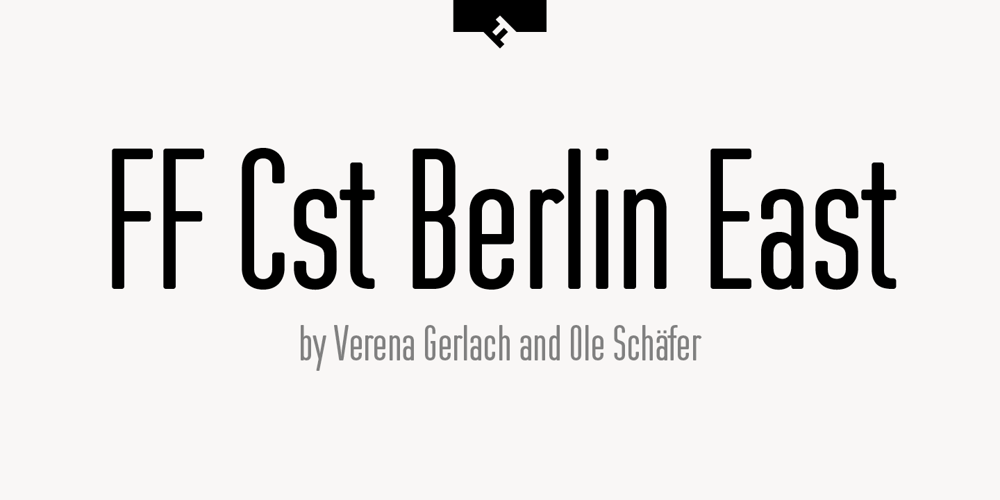
FF Cst Berlin East
FF Cst Berlin East font
FF Cst Berlin East Font Family was designed by Verena Gerlach, Ole Schäfer and published by FontFont. FF Cst Berlin East contains 5 styles and family package options. German type designers Verena Gerlach and Ole Schäfer created this sans FontFont in 2000. The family has 5 weights, ranging from Regular to Bold and is ideally suited for editorial and publishing and poster and billboards. FF CST Berlin East provides advanced typographical support with features such as ligatures, alternate characters, case-sensitive forms, and stylistic alternates. It comes with proportional lining and tabular lining figures. This FontFont is a member of the FF creative industriesty Street Type super family, which also includes FF CST Berlin West.